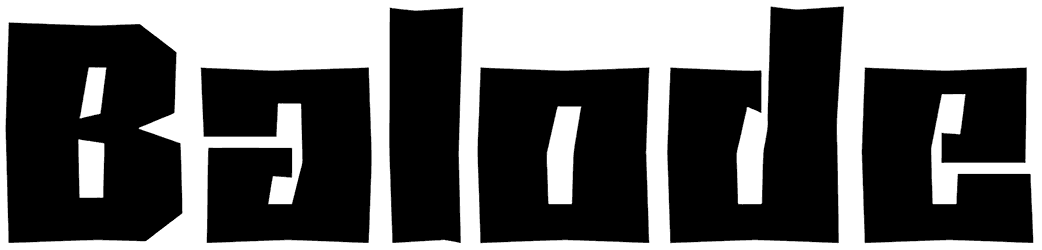
Balode Font
With a bold and playful handwritten font, your design can catch a lot of attention. Balode has a bulky and untidy letter style and can convey a funny vibe. This unique jungle font with a full cover of characters will be an eye-catching illustration for your creative designs, from games and comics to movie posters.